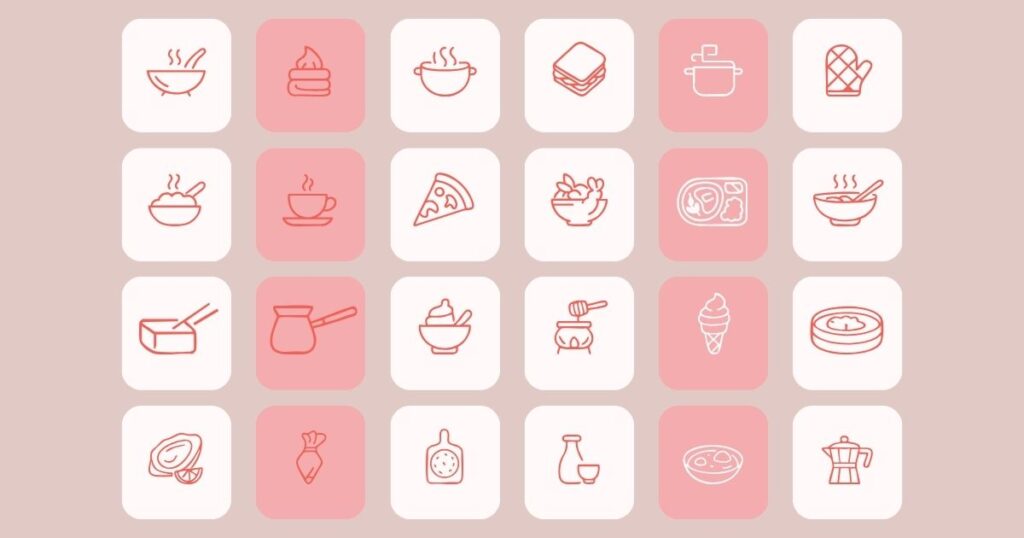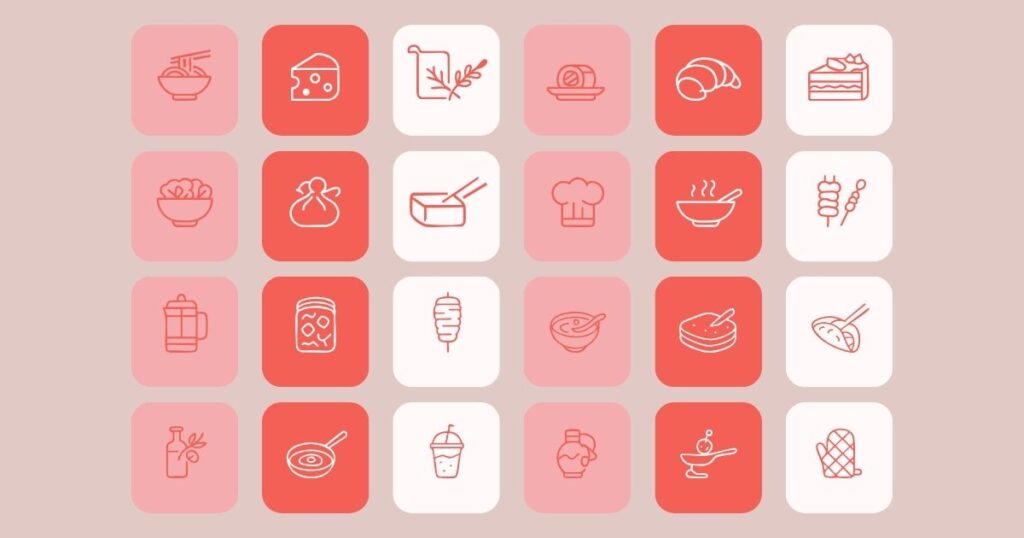
48 Foodie Snacks Doodle Font – Hand Drawn Food Icons
Spice up your designs with this fun and tasty collection of 48 hand-drawn food doodles in a clean, vector-style font. From noodles and pizza to coffee cups and baking tools — every icon is crafted to add charm to your creative projects.
🍕 Icons Included:
Noodles, sandwiches, donuts, soup bowls, pizza slices, coffee mugs, utensils, and much more — all in a cute and minimal line-art style.
Bring foodie vibes into your work effortlessly with this playful doodle font. Whether you’re designing for a cafe or just love snacks, this font will make your project look delicious!